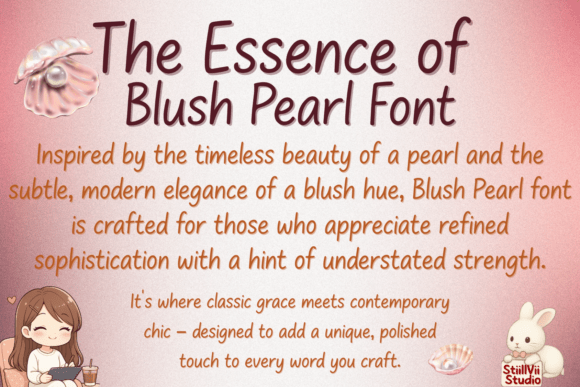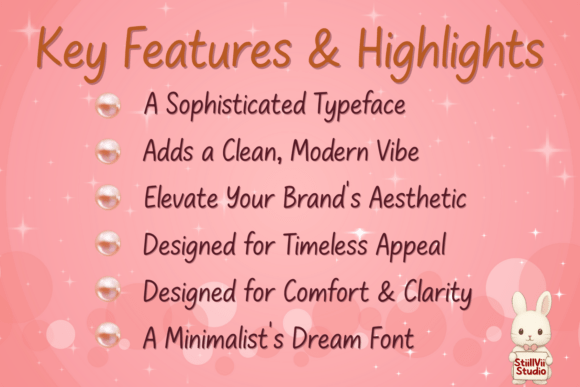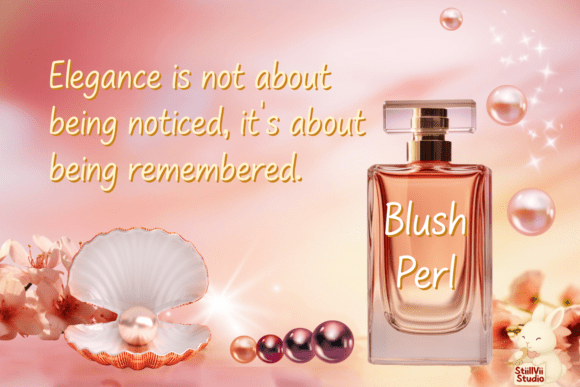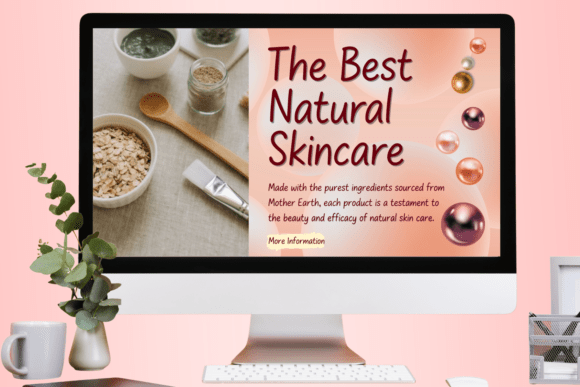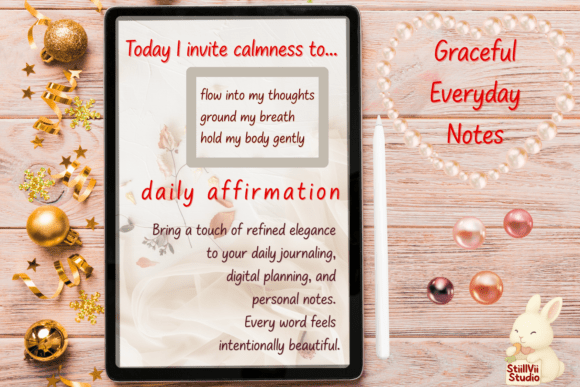
๐ Unveil the Timeless Elegance of โBlush Pearlโ ๐
Are you looking for a font that exudes luxury, sophistication, and modern elegance? Look no further than Blush Pearl, a stunning contemporary script font that is sure to elevate your designs to new heights. Inspired by the subtle glow of pearls and the refinement of modern sophistication, Blush Pearl is the perfect choice for designers and crafters seeking to add a touch of high-end style to their work.
What Makes Blush Pearl Special?
Unlike ordinary handwriting fonts, Blush Pearl is crafted with clean lines and a polished structure, making it stand out from the crowd. Its unique blend of classic elegance and modern sophistication makes it an ideal choice for a wide range of design applications, from luxury branding and packaging to wedding invitations and digital planners.
Why Blush Pearl is a Must-Have for Designers and Crafters
- โจ Sophisticated & Clean: Blush Pearl boasts a minimalist style that looks expensive and professional, making it perfect for high-end branding and designs that require a touch of luxury.
- ๐ Perfect for Branding: With its elegant and refined appearance, Blush Pearl is ideal for fashion, beauty, perfume, and lifestyle businesses seeking to establish a sophisticated brand identity.
- ๐ Timeless Appeal: Unlike trendy fonts that quickly go out of style, Blush Pearl has a classic look that never goes out of fashion, ensuring your designs remain timeless and relevant for years to come.
- ๐ Versatile Legibility: Whether you’re designing product labels, social media ads, or digital planners, Blush Pearl offers clear and versatile legibility, making it easy to read and understand.
Recommended Uses for Blush Pearl
Blush Pearl is an incredibly versatile font that can be used in a variety of design applications, including:
- Luxury Logo & Branding: Create a lasting impression with a luxurious logo that exudes elegance and sophistication.
- Product Packaging: Elevate your product packaging with Blush Pearl, perfect for cosmetics, jewelry, candles, and other high-end products.
- Wedding Invitations: Add a touch of romance and luxury to your wedding invitations and stationery with Blush Pearl.
- Digital Planners and Social Media Ads: Use Blush Pearl to create visually appealing digital planners and social media ads that grab attention and convey a sense of sophistication.
How to Use Blush Pearl in Your Designs
Using Blush Pearl in your designs is easy and straightforward. Here are a few tips to get you started:
- Pair with Neutral Colors: Pair Blush Pearl with neutral colors like white, beige, or gray to create a clean and sophisticated look.
- Experiment with Font Sizes: Experiment with different font sizes to create visual hierarchy and emphasize important information.
- Add Decorative Elements: Add decorative elements like illustrations or graphics to enhance your designs and create a unique look.
In conclusion, Blush Pearl is a stunning contemporary script font that offers a unique blend of elegance, sophistication, and modern refinement. With its clean lines, polished structure, and timeless appeal, Blush Pearl is the perfect choice for designers and crafters seeking to add a touch of luxury to their work. Whether you’re creating luxury branding, product packaging, wedding invitations, or digital planners, Blush Pearl is sure to elevate your designs to new heights.